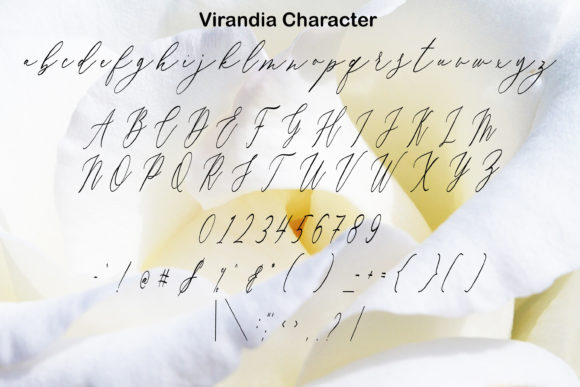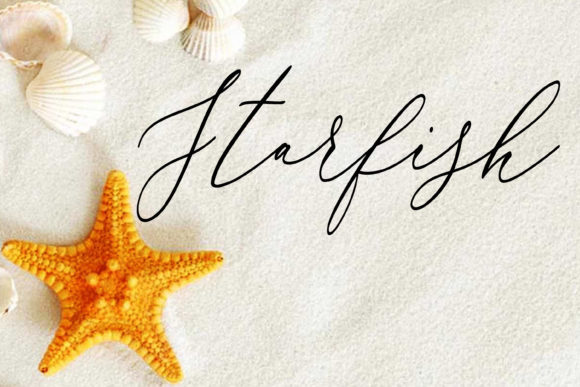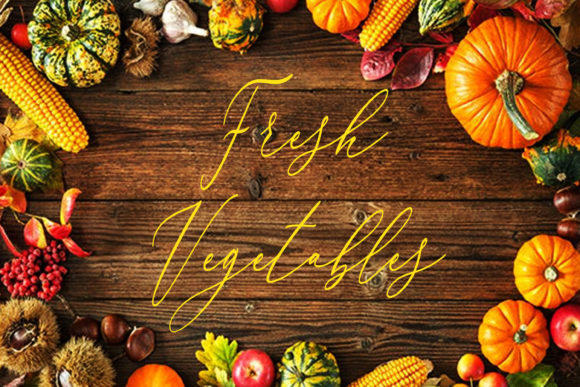
About Virandia Font
Virandia is a flowing and delicate handwritten font that embodies charm and elegance in every character. Use it for projects that need lovely, romantic typography!